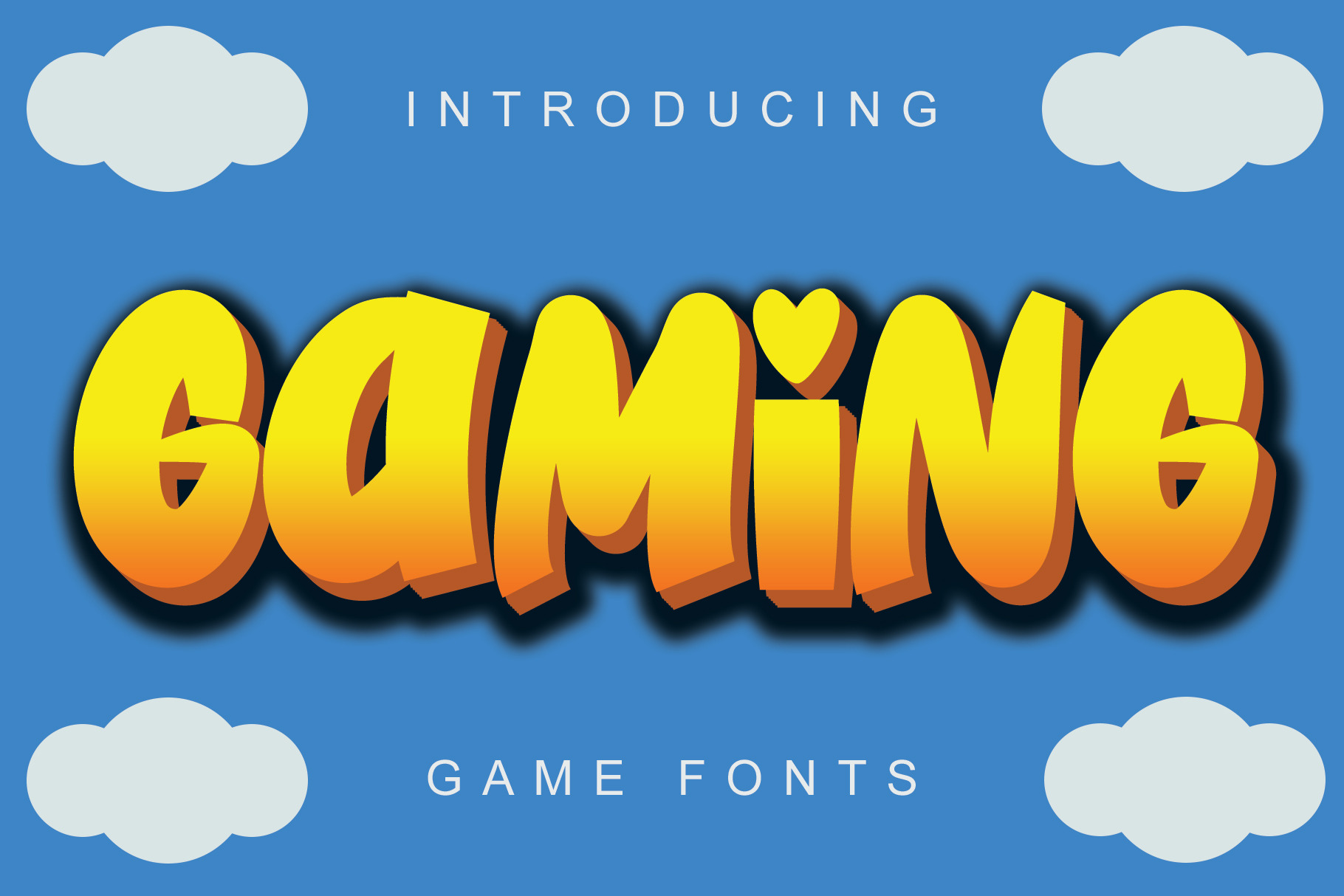
Gaming Font – Bold Typeface font
Level up your designs with Gaming Font – a bold, fun, and playful typeface built for creators who want to stand out in the digital world. With chunky curves and cheerful shapes, this font captures the energy of arcade games, cartoons, and comic adventures.
Whether you’re crafting titles for a kids' animation, building your gaming brand on YouTube, or designing eye-popping social media graphics, Gaming Font brings instant personality and charm. It’s perfect for entertainment logos, game UI, playful products, and more.
Cartoon and comic book titles
YouTube thumbnails and gaming channels
Instagram, Facebook & Twitter posts
Entertainment and TV show branding
Company logos & startup branding
Product packaging and merchandise
Posters, digital content, and more
Bold & Playful Style – Designed to attract attention with a lighthearted tone
Versatile Use – Great for everything from cartoons to tech-savvy startups
Screen-Optimized – Crisp rendering for all digital platforms
Fun for All Ages – Appeals to both kids and adults with its charming vibe
Gaming Font is your go-to typeface when you want boldness, fun, and unforgettable style—game on!